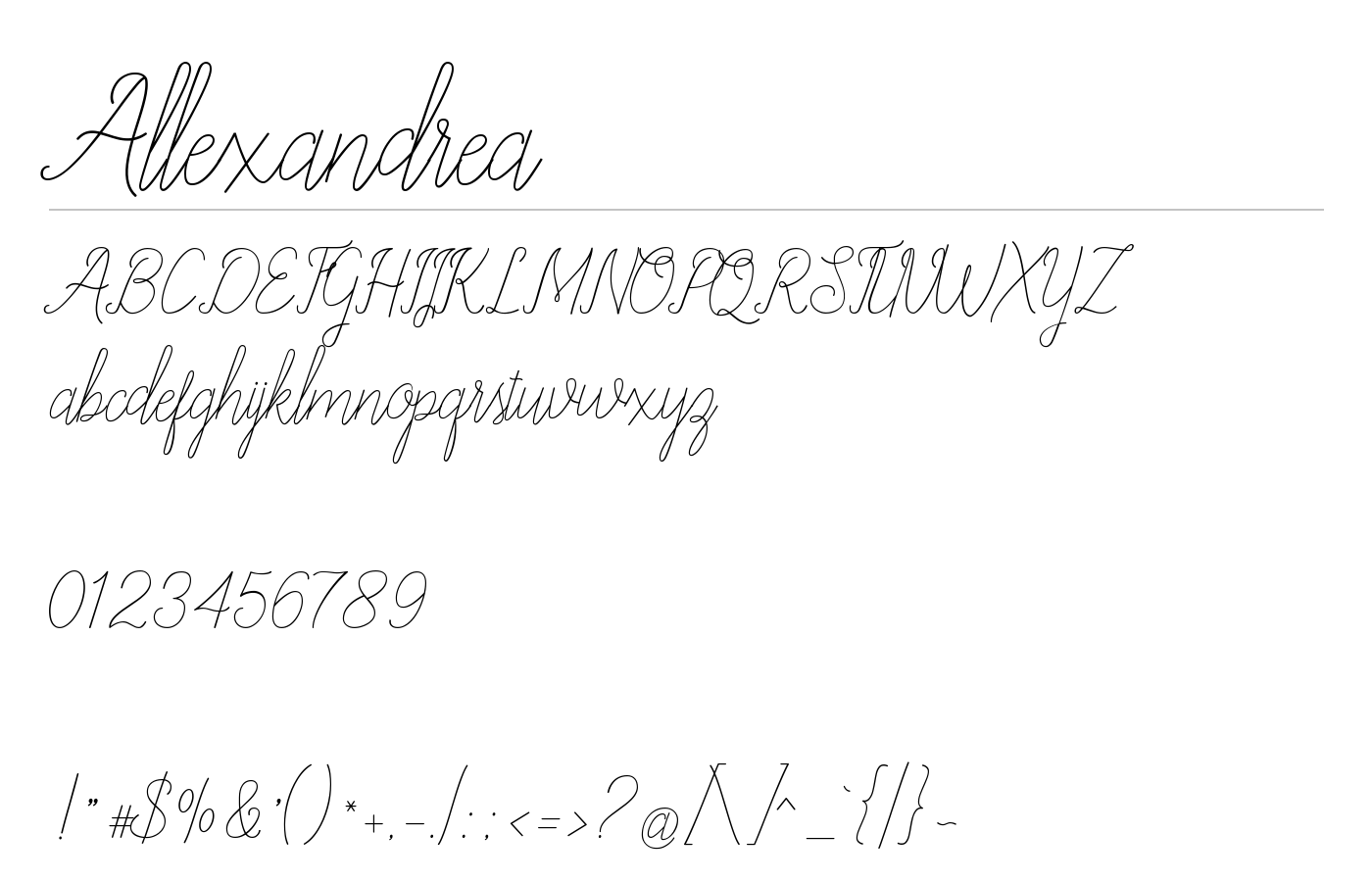
Allexandrea is a delicate, elegant script font with a thin, flowing stroke that mimics natural handwriting. Its slender letterforms and graceful curves give it a refined and sophisticated personality, making it perfect for invitations, branding, and stylish editorial work where a touch of elegance and femininity is desired. This font excels in large display settings, adding a graceful and personal feel to any design.
Allexandrea Font
About Allexandrea Font
| Font family | Allexandrea Font |